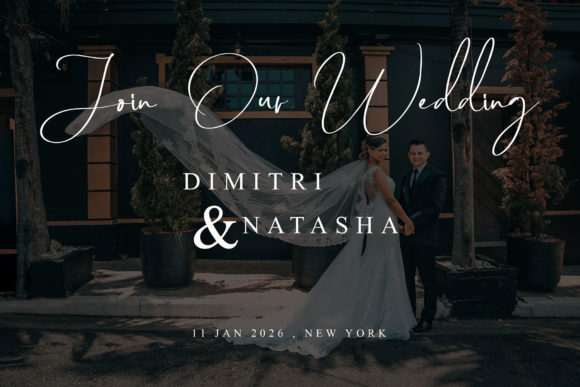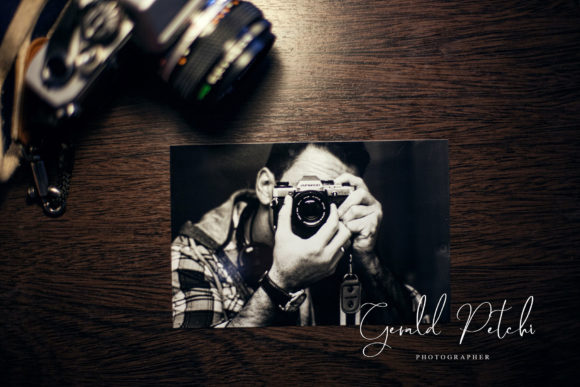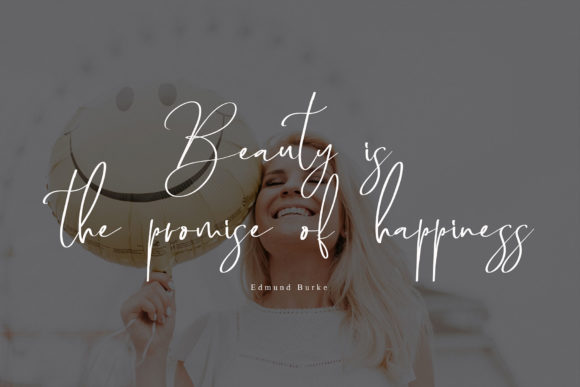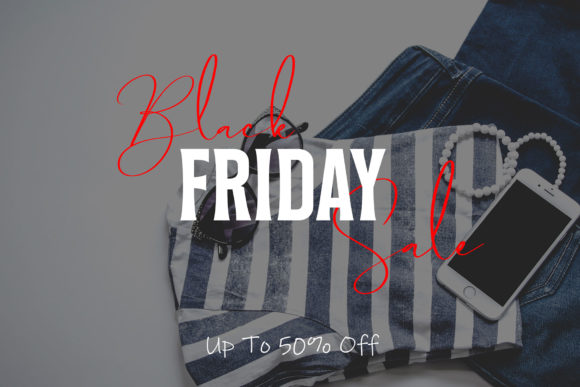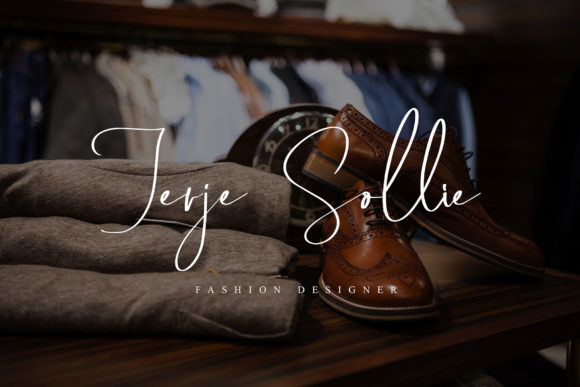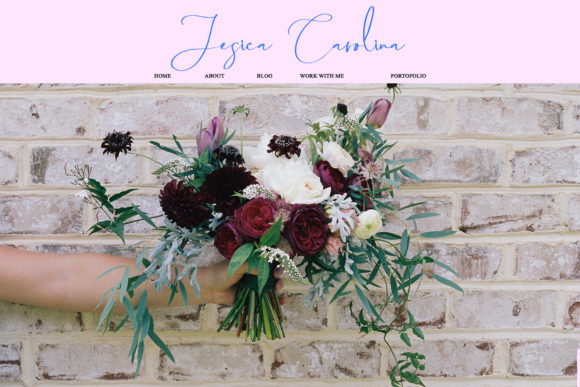
Meet Hollie Scott Font, a dreamy and romantic handwritten font that’s sure to capture your heart. With its elegant and whimsical charm, it’s perfect for printed quotes, wedding invitation cards, social media headlines, product packaging, and more! Whether you’re a seasoned designer or just starting out, Hollie Scott Font is a valuable addition to your toolkit. Its versatility and unique character make it a go-to choice for any creative project that requires a touch of romance and personality.
Hollie Scott Font Key Features
- Unique Characteristics: A modern script font with a friendly and approachable feel, suitable for various design projects such as invitations, greeting cards, and branding materials.
- Font Style: Available in Regular, Italic, Bold, and Bold Italic styles
Hollie Scott Font Review
Overall, I think Hollie Scott Font is a lovely addition to any design project. ✨ Its elegant and whimsical style makes it perfect for a wide range of applications, from children’s books to wedding invitations. The font’s unique combination of vintage and modern elements creates a sense of timelessness that’s hard to find in other fonts.
Here are some of the things that work well with Hollie Scott Font:
- ✨ Its fluid and connected letterforms create a smooth reading experience.
- ✨ The font’s high x-height makes it easy to read, even at small sizes.
- ✨ The font’s unique style makes it stand out from more generic serif fonts.
- ⚠️ The font may not be suitable for corporate or formal documents, as its playful style may not be taken seriously.
- ⚠️ Some users may find the font’s connections between letters to be too loose or inconsistent.
Overall, I think Hollie Scott Font is a great choice for designers looking for a unique and elegant font. While it may have some limitations, its strengths make it a valuable addition to any design project.
The Hollie Scott Font is ideal for:
• Invitations and event planning materials
• Social media graphics and advertisements
• Branding and marketing materials
• Personalized gifts and stationery
Alternatives to Hollie Scott Font
Great Vibes is a beautiful, elegant script font that is perfect for creating a romantic or vintage atmosphere. It features flowing lines and a cursive style that is reminiscent of handwritten text. When to use: wedding invitations, baby shower invitations, or any other occasion that requires a touch of elegance.
Comparison to Hollie Scott Font: While both fonts are script fonts, Great Vibes has a more elegant and refined feel, whereas Hollie Scott Font has a more playful and whimsical feel.
Carolyna Pro is a modern script font that is perfect for creating a sophisticated and stylish look. It features a mix of cursive and geometric elements, making it a great choice for logos, branding, and advertising. When to use: luxury brands, high-end products, or any other occasion that requires a touch of sophistication.
Comparison to Hollie Scott Font: While both fonts are modern and stylish, Carolyna Pro has a more geometric and structural feel, whereas Hollie Scott Font has a more organic and flowing feel.